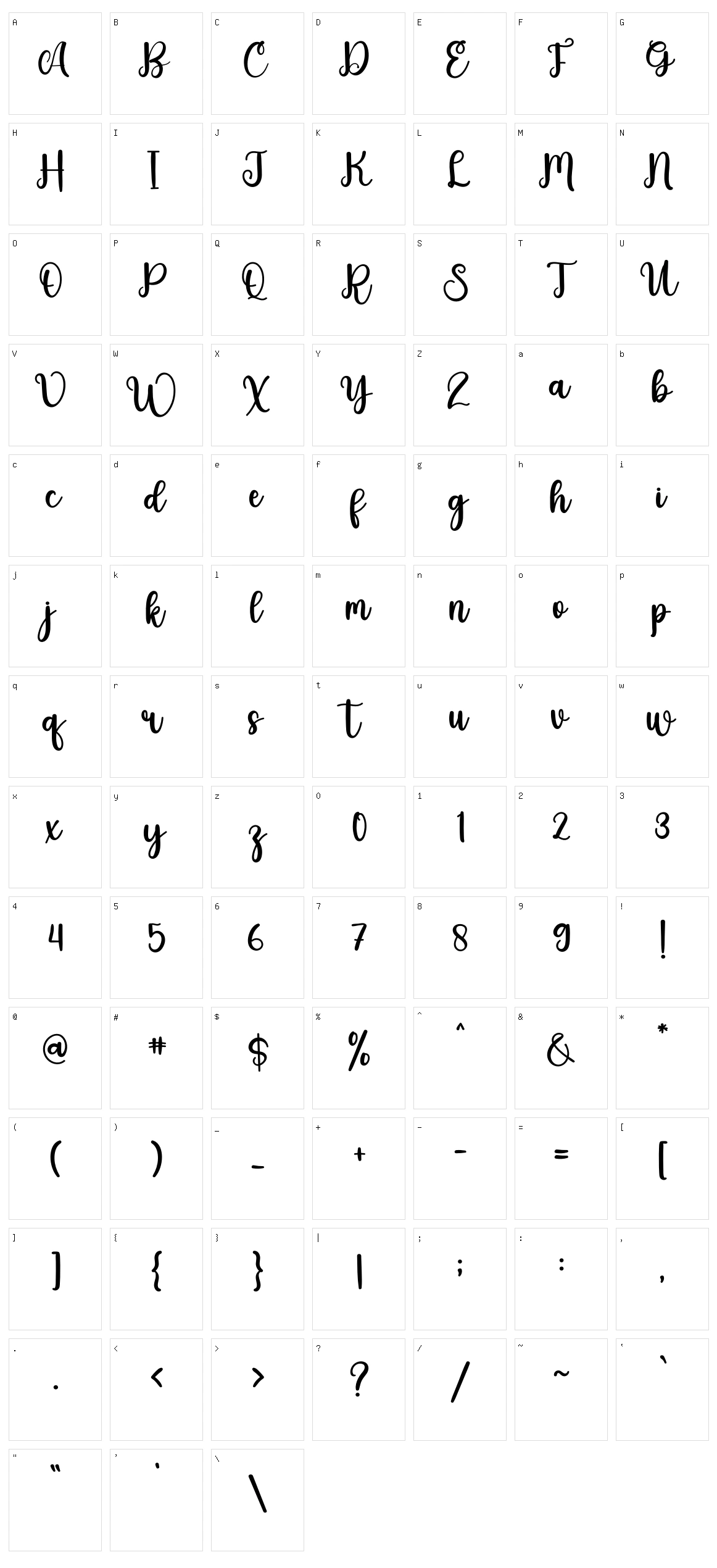
The free font Behinds is carefully designed by Inermedia Studio, showcasing a thoughtful balance of creativity and usability and falls under the Script font style. When you download the ZIP file, it contains only 81.03 KB of font files, making it lightweight and quick to download. Please review the license details below to understand permitted usage and distribution rights. If license information is not available, we recommend using this font for personal projects only or contacting the author directly for commercial usage permissions.